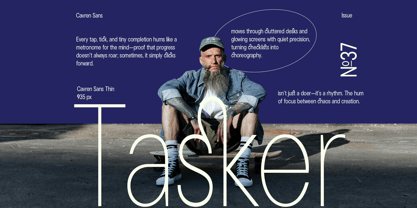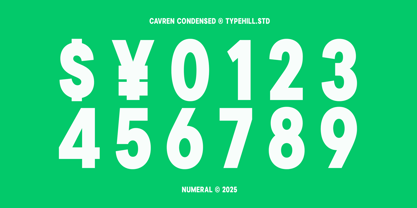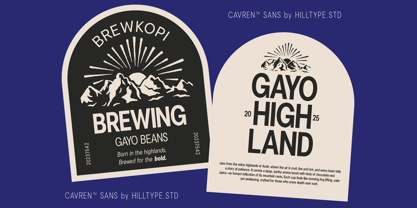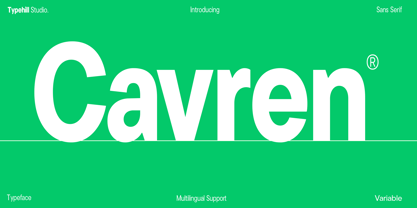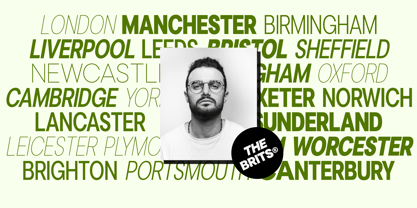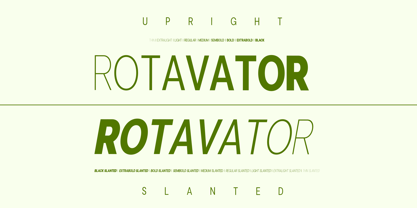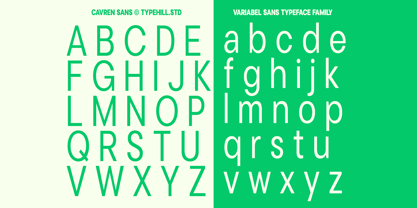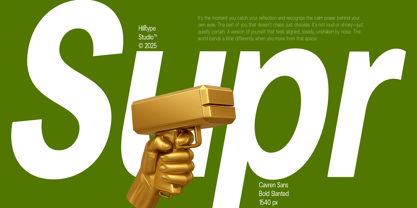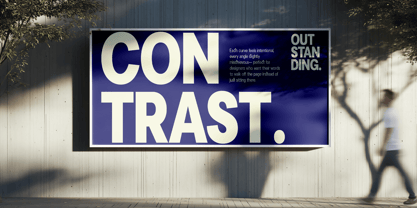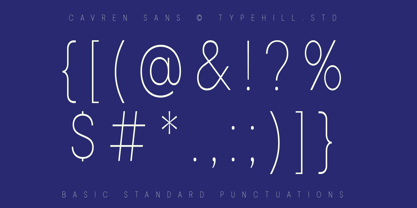
Cavren Condensed
La familia tipográfica Cavren Condensed fue diseñada por Teuku Fahruddin y publicada por Typehill Studio. Cavren Condensed contiene 19 estilos y opciones de paquete familiar. Más información sobre esta familia
Cavren Sans Condensed is a modern condensed sans serif typeface designed to maximize impact while saving space. Built with clean geometry, balanced proportions, and refined details, it delivers a confident, contemporary voice that performs beautifully across both print and digital media.
The condensed structure allows more content to fit into limited space without sacrificing readability, making it an excellent choice for editorial layouts, branding systems, advertising, posters, packaging, user interfaces, websites, and corporate communications. Whether used for bold headlines or structured typography, Cavren Sans Condensed maintains a strong visual presence with a clean and professional appearance.
The family includes 18 carefully crafted styles, ranging from Thin to Black, with 9 upright weights and 9 matching italics. This extensive weight range gives designers complete flexibility for creating consistent typographic hierarchies across a wide variety of projects.
Every character has been refined for clarity and balance, while comprehensive multilingual support and OpenType features make the family suitable for international branding and professional publishing.